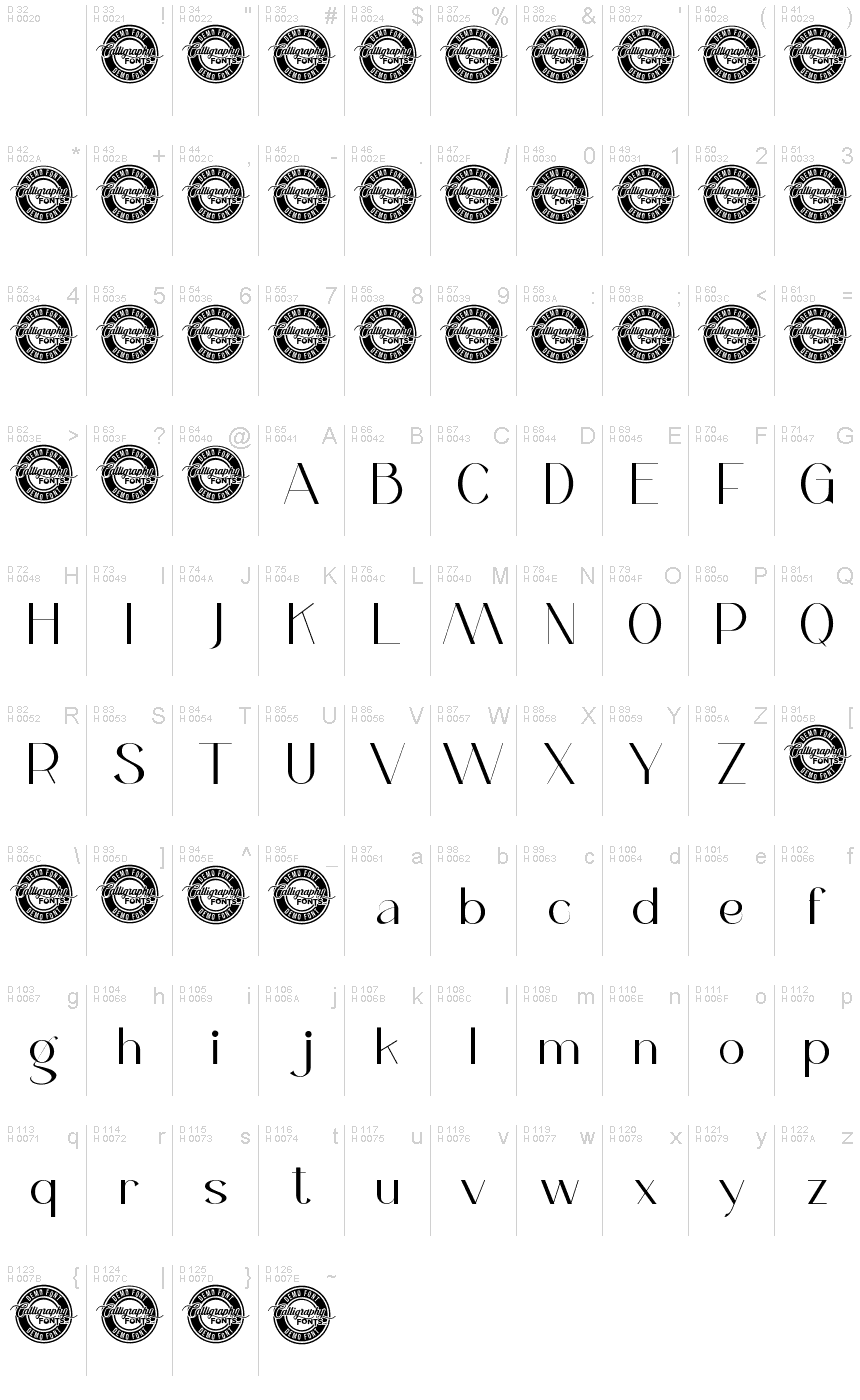
Madame Grettha Demo
Madame Grettha, a captivating creation by Calligraphy Fonts, is an exquisite sans serif font that effortlessly blends elegance with modernity. With its semi-light weight, this font exudes a delicate sophistication that is perfect for projects requiring a touch of grace.
Its fluid and graceful strokes make it ideal for wedding invitations, feminine fashion magazines, and delicate branding materials. Madame Grettha's versatile nature also makes it suitable for minimalist website designs, elegant typography in luxury product packaging, and refined restaurant menus.
Let this font elevate your project with its timeless beauty and charm.